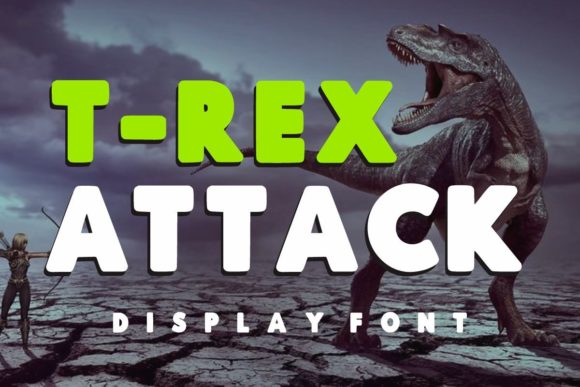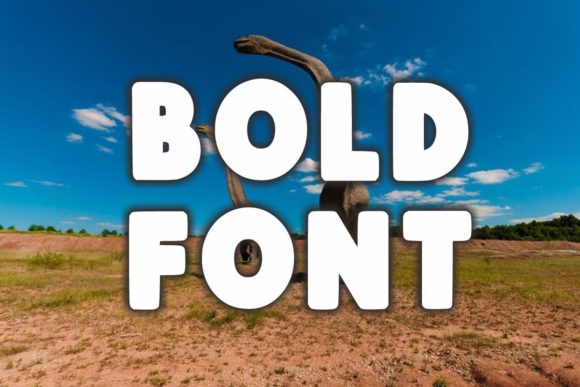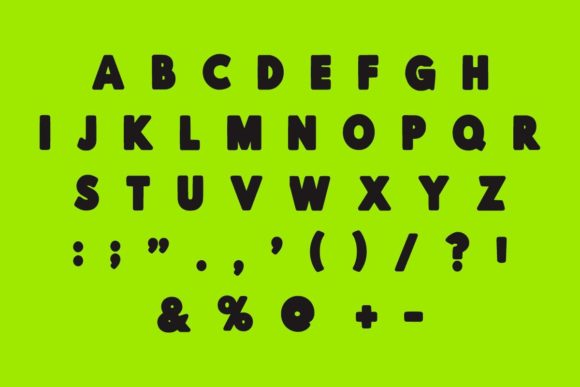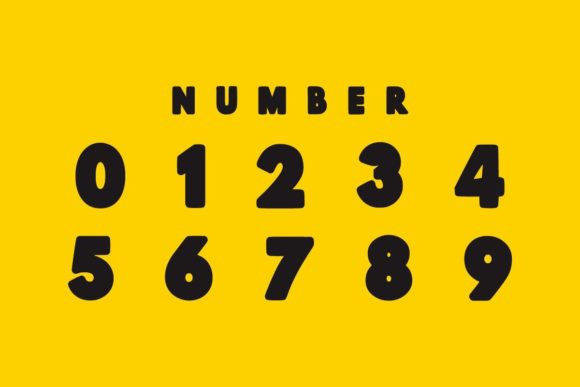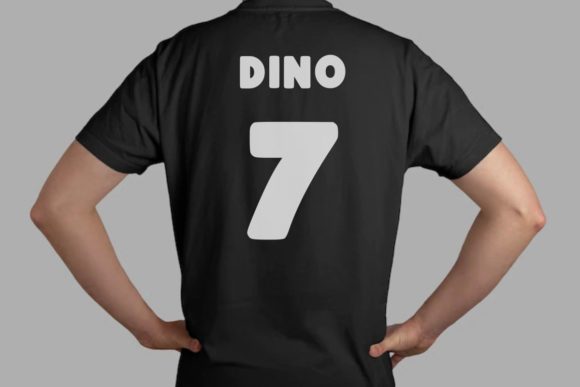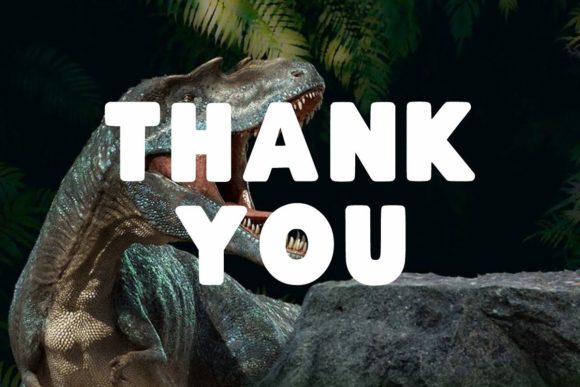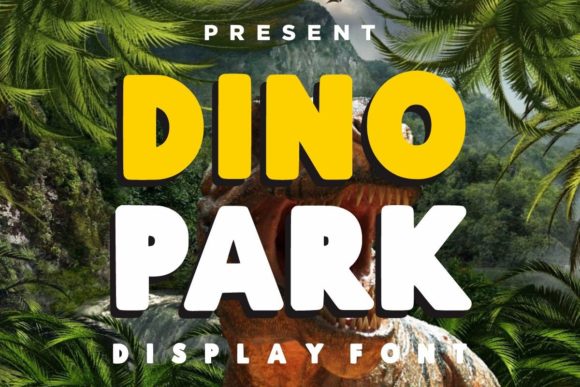
Dino Park Font: The Ultimate Display Font for Friendly Designs
Are you tired of using the same old fonts for your designs? Look no further than the Dino Park font, a childish, bold, and easy-to-read display font that’s perfect for adding a touch of friendliness to your projects. In this article, we’ll dive into the world of Dino Park font, exploring its features, uses, and benefits for designers and crafters alike.
The Perfect Blend of Friendliness and Readability
Dino Park font is designed to convey impeccable friendliness, making it an ideal choice for a wide range of design projects. Its bold and playful style is sure to capture the attention of your audience, while its easy-to-read design ensures that your message is communicated clearly and effectively. Whether you’re creating crafts, digital designs, presentations, or greeting cards, Dino Park font is the perfect choice for adding a personal touch to your work.
Key Features of Dino Park Font
- Childish and playful style: Dino Park font features a fun and youthful design that’s perfect for projects that require a touch of whimsy.
- Bold and easy-to-read: The font’s bold style ensures that your text stands out, while its easy-to-read design makes it perfect for use in a variety of contexts.
- Versatile: Dino Park font can be used for a wide range of design projects, from crafts and digital designs to presentations and greeting cards.
Uses for Dino Park Font
Dino Park font is a versatile font that can be used in a variety of design projects. Here are some ideas to get you started:
- Crafts: Use Dino Park font to add a personal touch to your craft projects, such as scrapbooking, card making, and DIY gifts.
- Digital design: Add a friendly touch to your digital designs, such as social media graphics, blog posts, and website headers.
- Presentations: Use Dino Park font to create engaging and easy-to-read presentations for work or school.
- Greeting cards: Add a playful touch to your greeting cards, whether you’re creating them for special occasions or just to say hello.
Benefits of Using Dino Park Font
So why choose Dino Park font for your design projects? Here are just a few benefits of using this friendly and versatile font:
- Adds a personal touch: Dino Park font’s playful and childish style adds a personal touch to your designs, making them more relatable and engaging.
- Improves readability: The font’s easy-to-read design ensures that your message is communicated clearly and effectively.
- Increases versatility: Dino Park font can be used in a wide range of design projects, making it a great addition to your font library.
Tips for Using Dino Park Font
Here are a few tips for getting the most out of Dino Park font:
- Use it sparingly: While Dino Park font is perfect for adding a touch of friendliness to your designs, it’s best to use it sparingly to avoid overwhelming your audience.
- Pair it with other fonts: Experiment with pairing Dino Park font with other fonts to create a unique and visually appealing design.
- Experiment with colors: Don’t be afraid to experiment with different colors and textures to add depth and interest to your designs.
Dino Park font is a friendly, bold, and easy-to-read display font that’s perfect for adding a personal touch to your design projects. With its versatile design and wide range of uses, it’s no wonder that this font has the potential to become your favorite go-to font. Whether you’re a designer, crafter, or simply someone who loves to create, Dino Park font is a great addition to your font library.